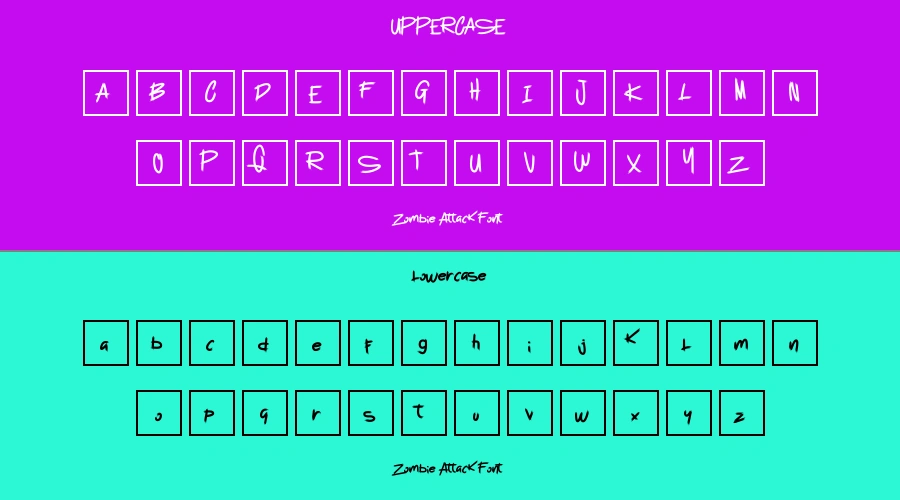
About Zombie Attack Font
Zombie Attack Font embodies typographic excellence through its masterful combination of organic curves and professional finish. Created for advertising campaigns, this typeface delivers exceptional flexibility and technical excellence across all applications. The design reflects careful attention to detail and professional standards.
Advanced capabilities include distinctive graceful transitions and versatile contextual alternates, giving designers creative control. When used in display applications, Zombie Attack Font exhibits remarkable OCR compatibility. The harmonious balance between beak formation and institutional acceptance sets this typeface apart.